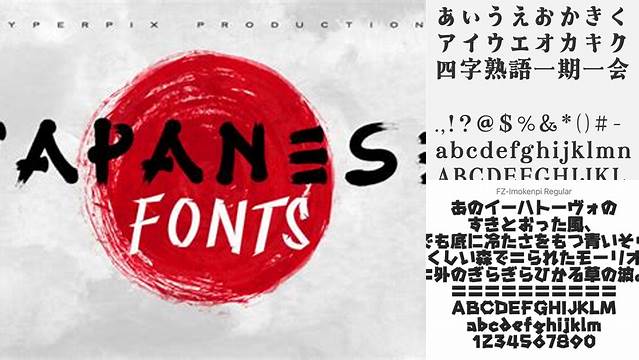
Free Japanese Fonts: Download Now!
Hey guys! Are you looking to add some authentic Japanese flair to your designs? Well, you've come to the right place! Finding the perfect free Japanese font can be a game-changer for your projects, whether you're working on a website, a poster, or even just a personal project. In this article, we're diving deep into the world of free Japanese fonts, exploring everything from where to find them to how to use them effectively. So, grab a cup of coffee (or maybe some matcha!), and let's get started!
1. Understanding Japanese Font Styles
Before we jump into where to download free Japanese fonts, it's super important to understand the different styles available. Japanese writing uses three main scripts: Hiragana, Katakana, and Kanji. Each script has its own unique characteristics, and fonts can be designed to reflect different moods and aesthetics. Understanding these styles helps you choose the perfect free Japanese font for your specific needs. Hiragana is a cursive script often used for grammatical particles and native Japanese words. Katakana is more angular and typically used for foreign loanwords and onomatopoeia. Kanji, the most complex of the three, consists of thousands of characters borrowed from Chinese, each with its own meaning and often multiple readings. Each of these scripts requires different design considerations, making the world of free Japanese fonts a rich and diverse one to explore.
Think about the message you want to convey. A playful design might benefit from a rounded, cute free Japanese font, while a more serious project might call for a traditional, brushstroke-style font. Knowing your audience and the purpose of your design is key to choosing the right free Japanese font. Also, consider the readability of the font, especially if you're using it for body text. Some ornate fonts can look beautiful but might be challenging to read in large blocks of text. Always prioritize clarity and legibility. The best free Japanese fonts balance aesthetic appeal with practical usability, ensuring your message is both beautiful and accessible.
When browsing for free Japanese fonts, you'll often encounter terms like Mincho (similar to serif fonts in Western typography, often used in print) and Gothic (similar to sans-serif fonts, commonly used for digital displays). Understanding these basic classifications will help you narrow down your search and find a free Japanese font that aligns with your project’s needs. Each style evokes a different feel – Mincho is often associated with elegance and tradition, while Gothic is seen as modern and clean. Experiment with different styles to see what resonates best with your design and the message you want to convey. Don't be afraid to mix and match styles, but always ensure there's a visual harmony in your overall design.
3. Understanding Font Licensing
Okay, this might sound a bit dry, but it’s super important: font licensing. Before you use any free Japanese font (or any font, really), you need to understand the license. Most free Japanese fonts come with specific terms of use that dictate how you can use them. Some are free for personal use but require a commercial license if you're using them for a business project. Others might be completely free for any use, but it's always best to double-check. Ignoring these licenses can lead to legal trouble, and nobody wants that! So, take a few minutes to read the fine print – it’s worth it.
Common licensing terms include restrictions on embedding the free Japanese font in documents or software, modifying the free Japanese font, or redistributing the free Japanese font itself. Some licenses may allow you to use the free Japanese font for a certain number of projects or up to a certain audience size. It's crucial to understand these limitations to avoid any potential legal issues. Always look for the license information on the download page or in a separate text file included with the free Japanese font. If you're unsure about any aspect of the license, it's best to contact the font designer or foundry directly for clarification.